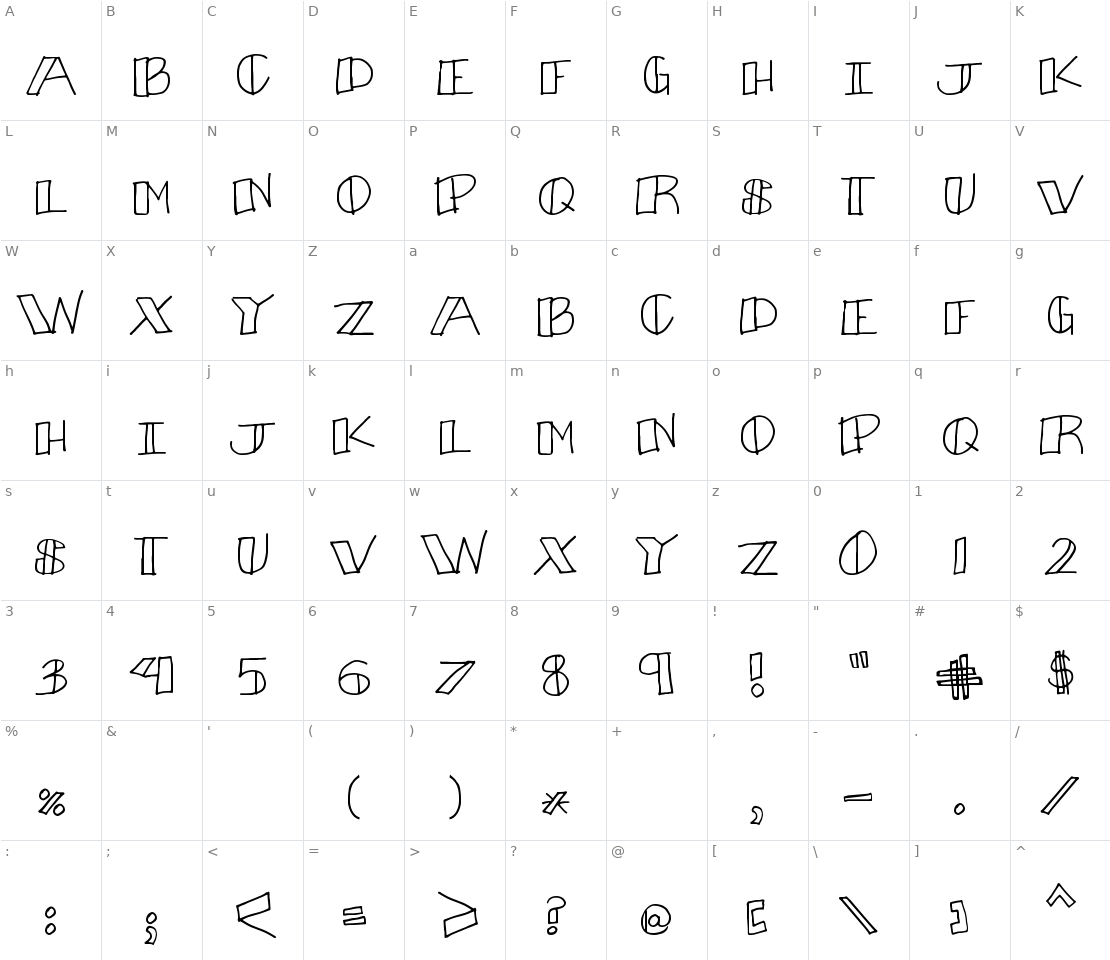
Bouquet
Bouquet is a thin, casual handwritten face from Xerographer Fonts with a quirky, slightly offbeat personality. The lightweight strokes feel genuinely informal, like notes scribbled in the margins of a notebook, but with enough playful character to hold its own in headlines, greeting cards, and personal branding.